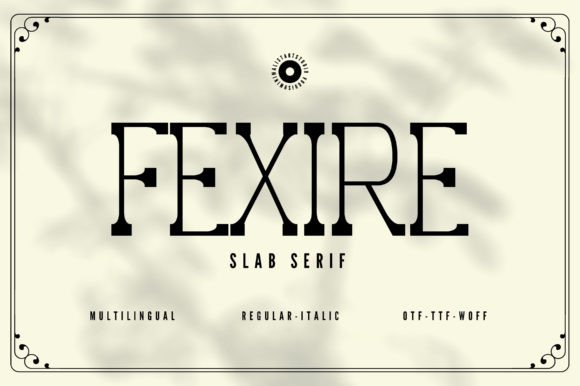
Unleash the power of Fexire, the slab serif font that exudes sophistication and elegance with a minimalist touch. Dive into a world of creativity and professionalism as you explore the 604+ glyphs that bring versatility and uniqueness to any design project. Whether you're a branding guru or an editorial maestro, Fexire's bold and striking lines command attention, while its minimalistic approach adds a captivating allure that leaves a lasting impression.
Embrace the versatility of Fexire, a font that transcends boundaries with its multilingual support. Craft designs that resonate with a global audience, creating connections across cultures and languages. From websites that captivate to logos that leave an imprint, and marketing materials that inspire, Fexire empowers you to conquer the world, one design at a time.
Fexire is not just a font; it's a statement of style, a reflection of your distinctive persona. Elevate your brand's presence with a logo that exudes confidence and charisma. Create marketing materials that allure and entice, leaving a lasting impression on your audience. Unleash your creativity and watch as Fexire transforms your designs into masterpieces of elegance and professionalism.